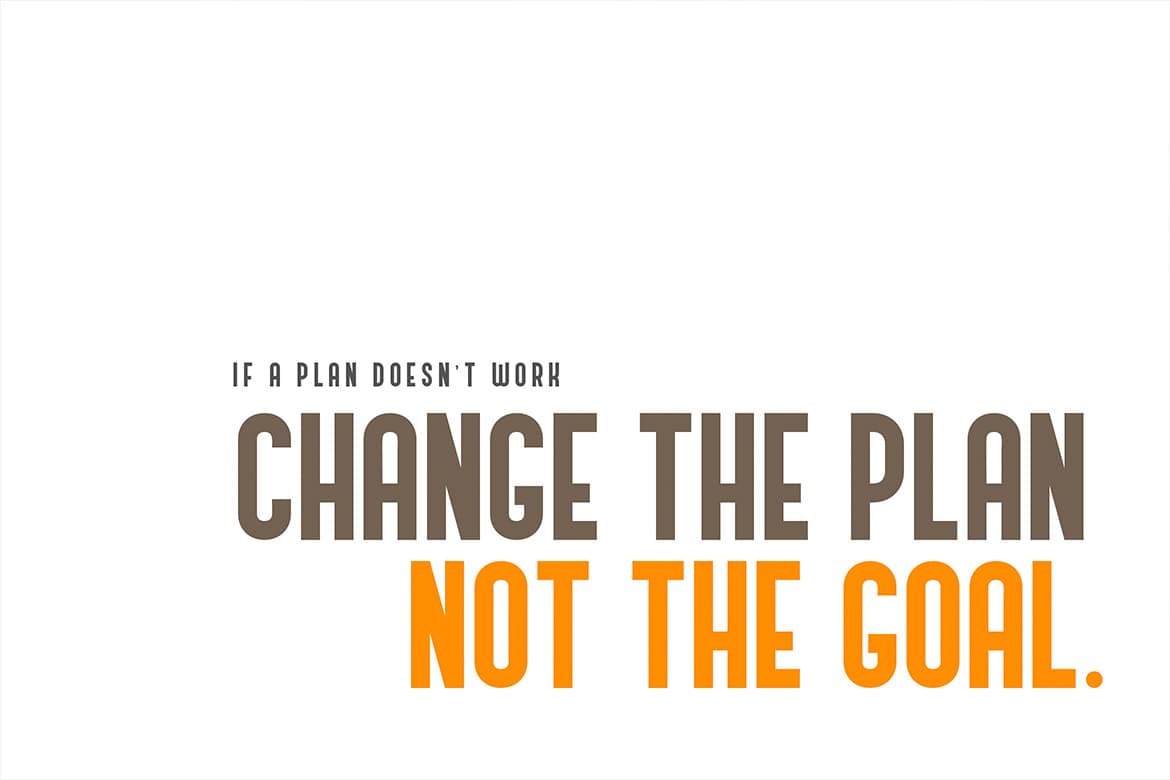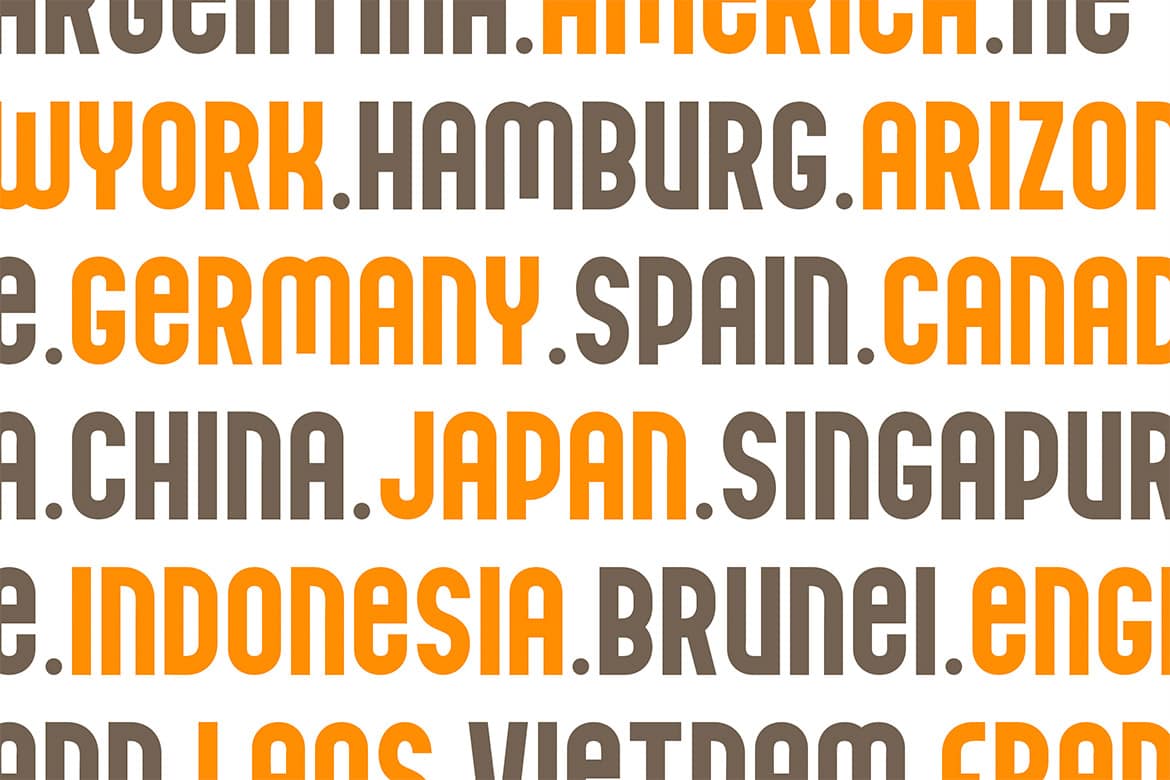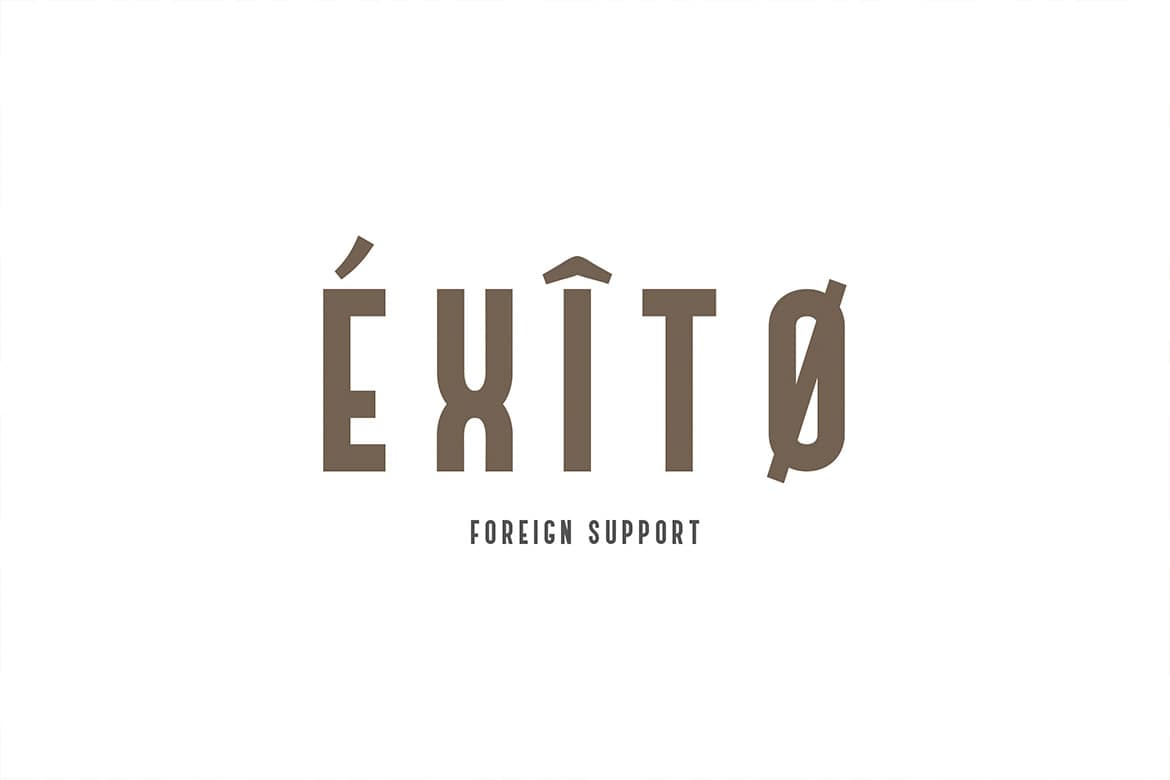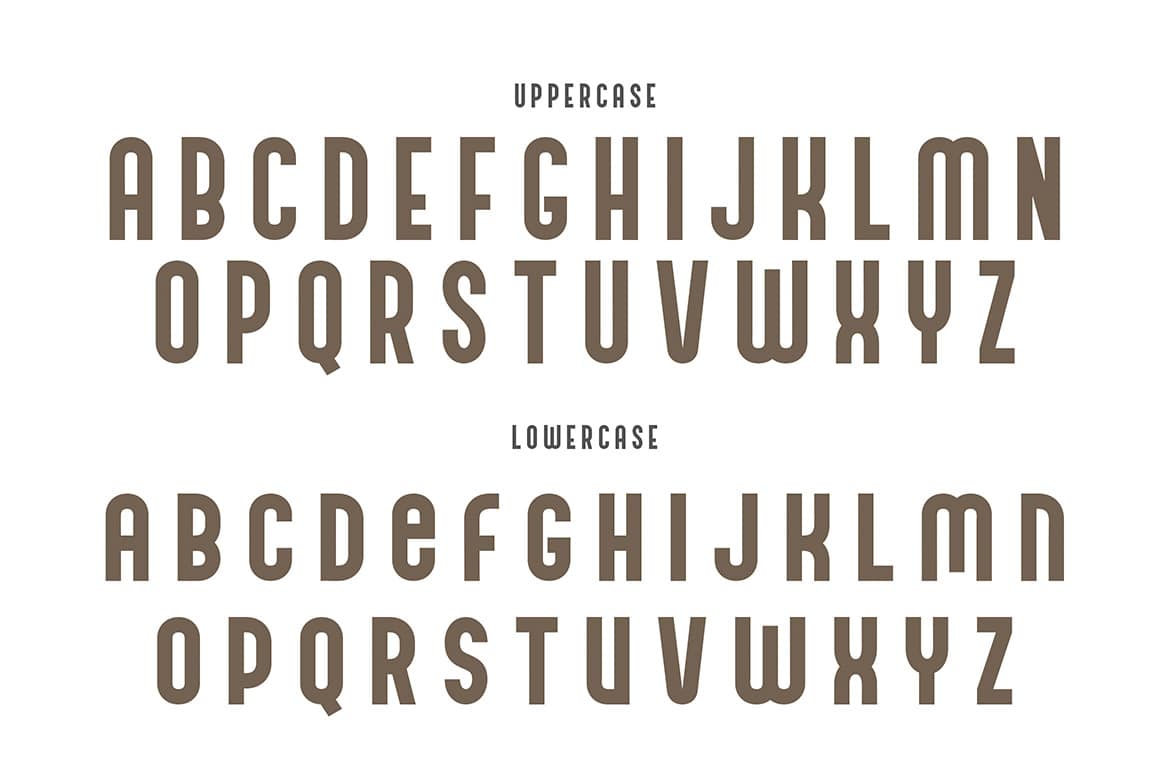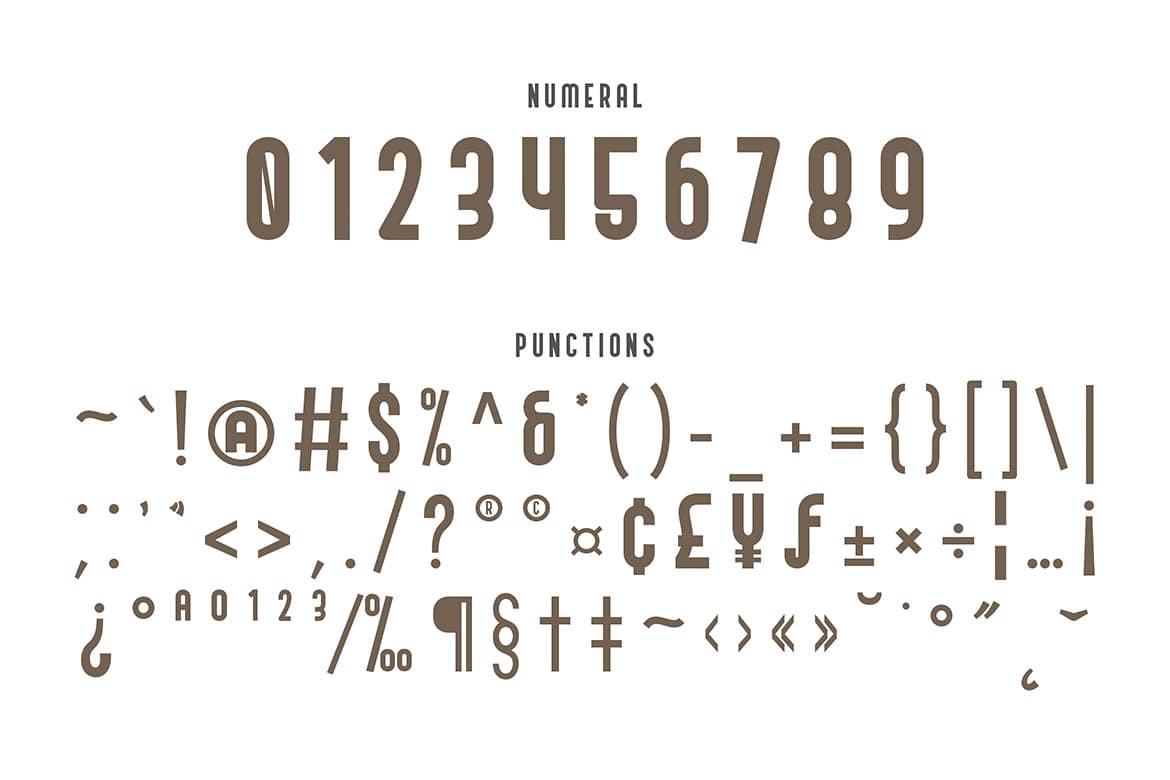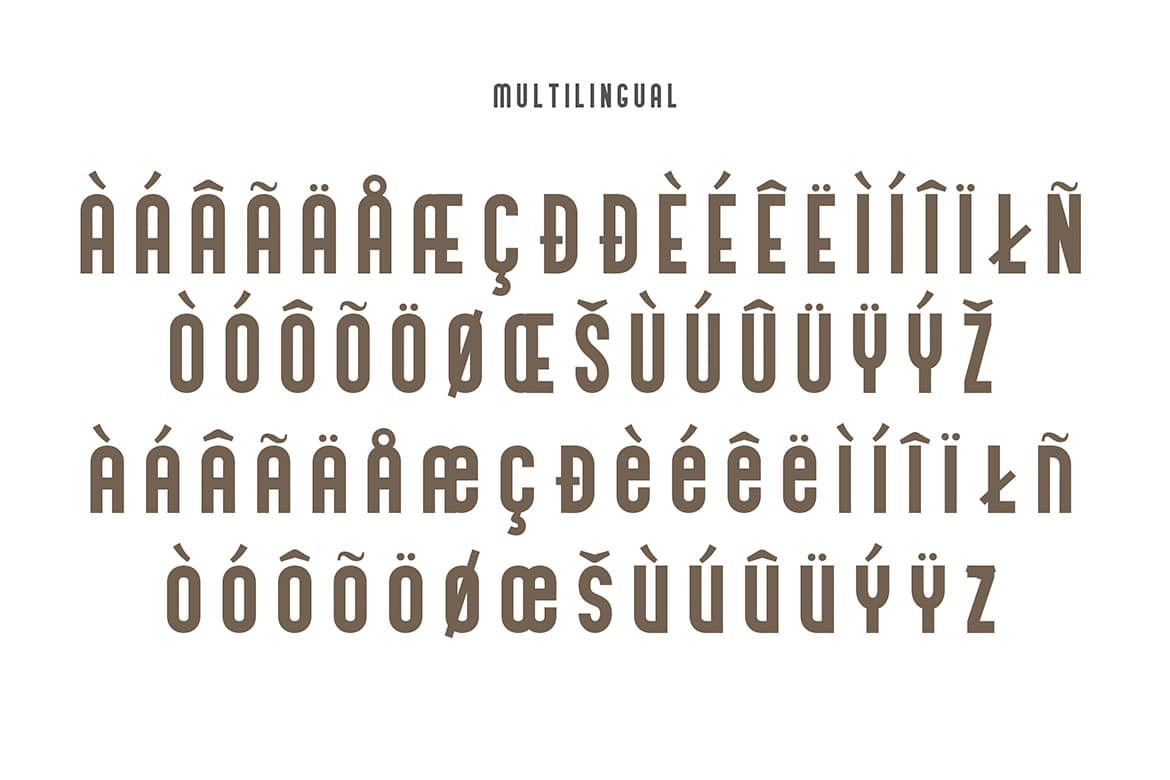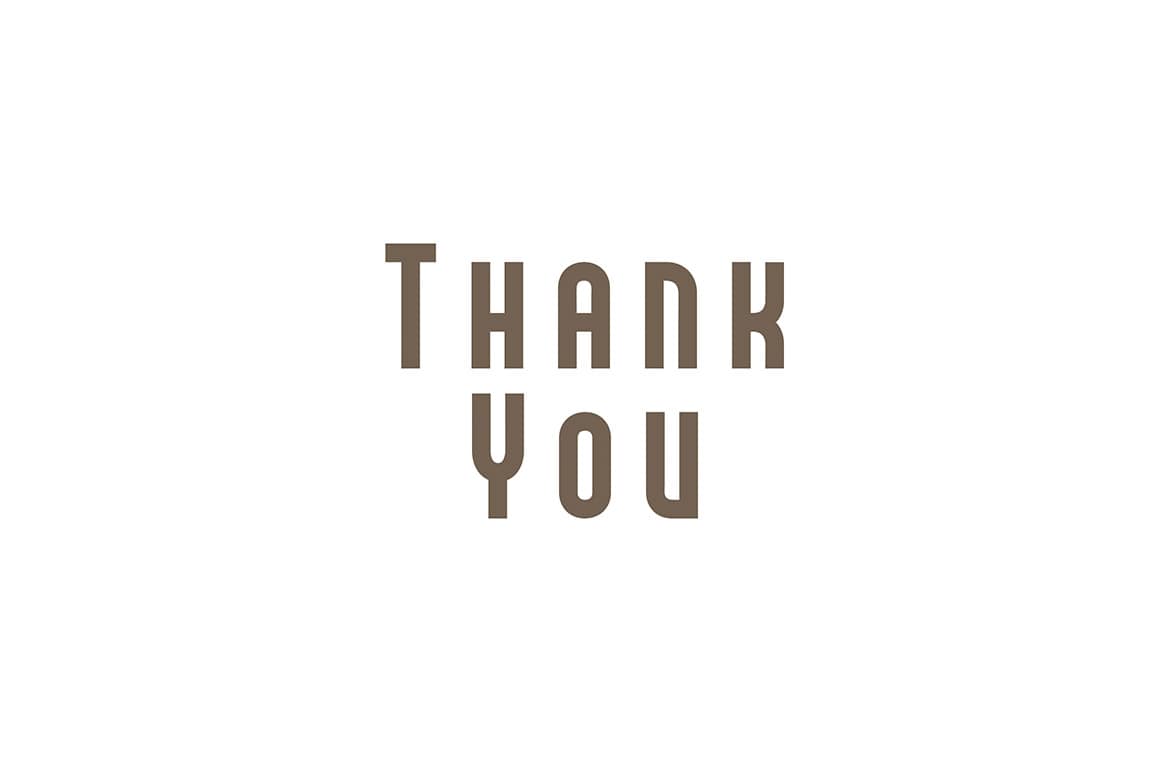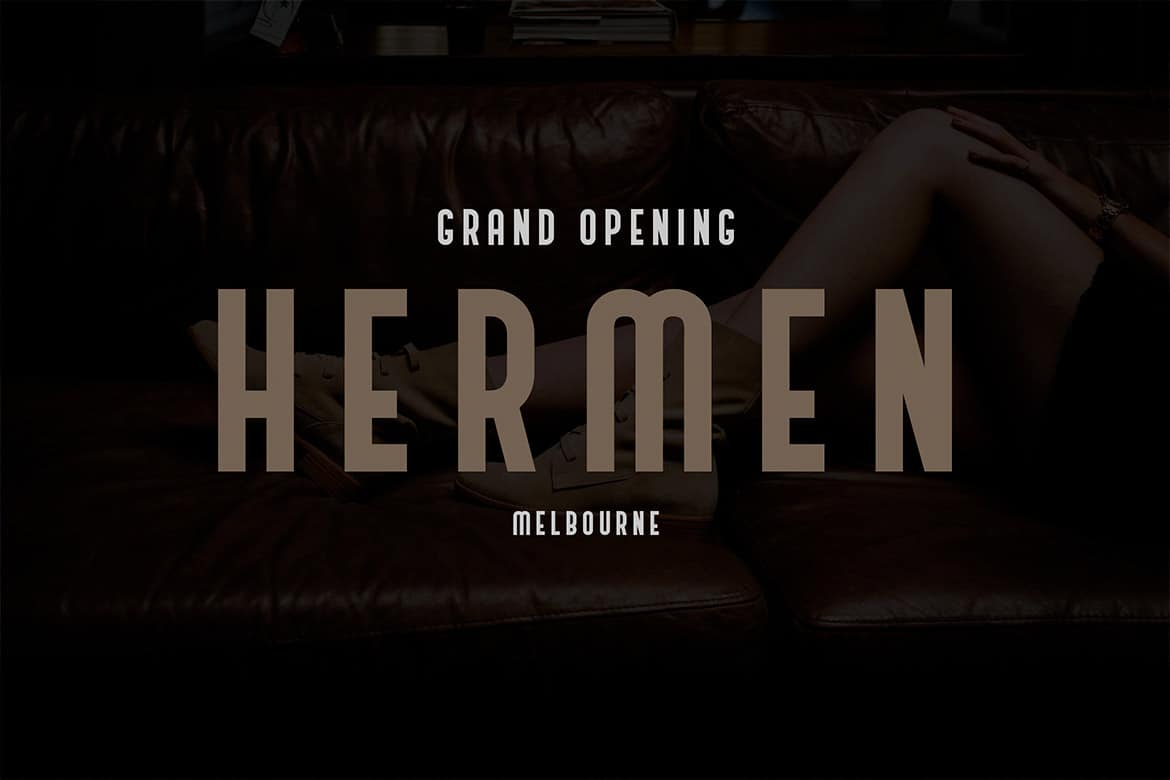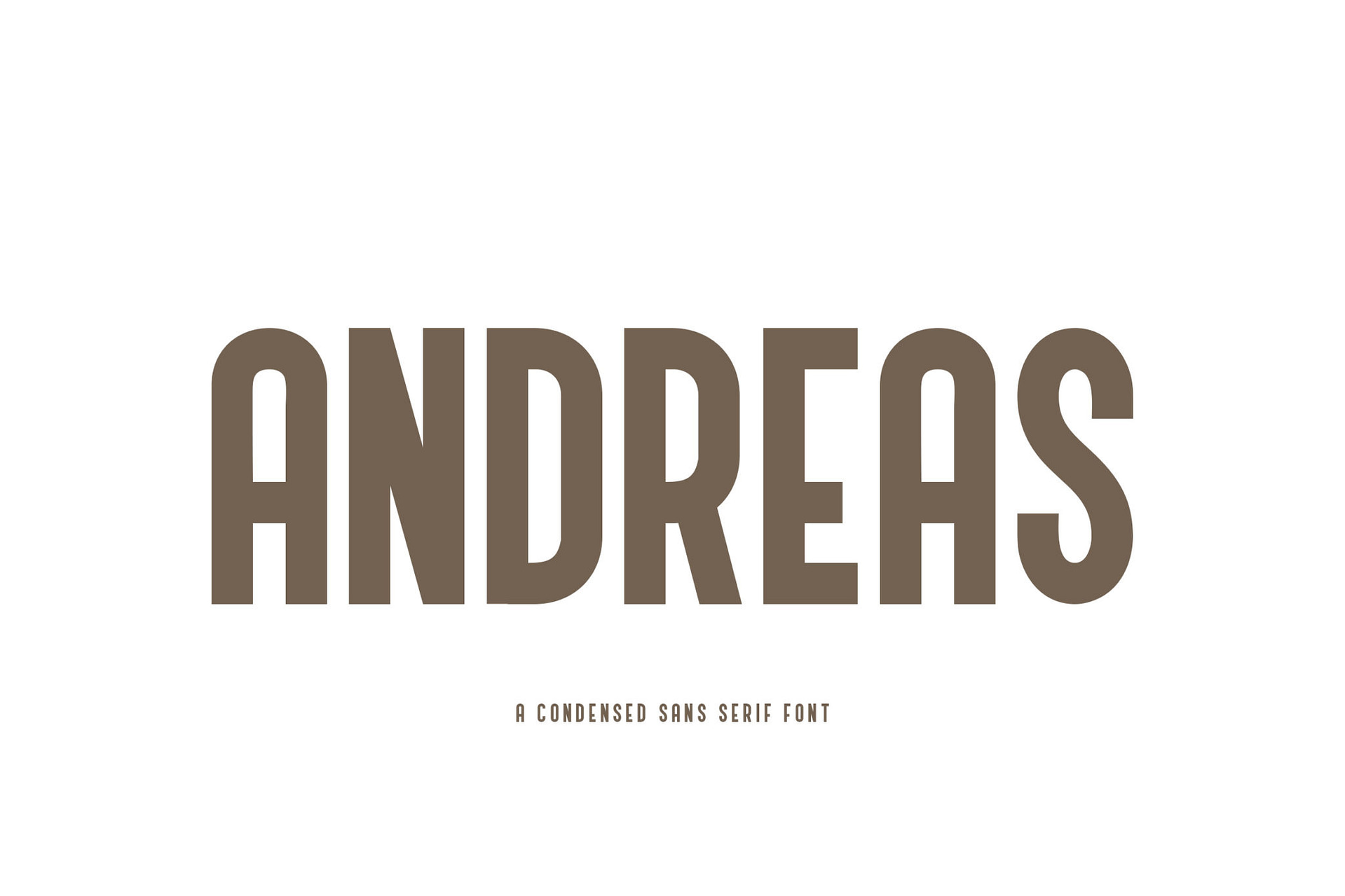
Andreas is a sleek and modern condensed sans serif font that combines simplicity with boldness. Designed for versatility and clarity, this typeface is perfect for projects requiring a professional yet contemporary look. Its compact design and clean lines make it suitable for a variety of creative and business needs.
Key Features:
1. Condensed Structure: The narrow letterforms save space while maintaining readability, ideal for layouts with limited space.
2. Minimalist Aesthetic: Offers a clean and modern look, perfect for brands or projects prioritizing simplicity and sophistication.
3. Versatile Applications:
• Branding and logos
• Editorial and magazine layouts
• Posters, banners, and advertisements
• Social media graphics
• Business presentations
4. Professional Finish: Sharp edges and even spacing ensure a polished look across all formats.
Ideal For:
• Graphic designers aiming for a modern aesthetic.
• Businesses looking to create a sleek and professional brand image.
• Projects that require clarity and impact, such as headlines or digital interfaces.
Applications:
• Branding: Great for creating logo designs or visual identities.
• Editorial Design: Perfect for headlines, subheadings, and cover pages in magazines or newspapers.
• Corporate Materials: Suitable for presentations, business cards, and reports.
• Advertising: Bold enough to grab attention in posters and social media ads.
• Web Design: Excellent for clean and minimalist website headers or banners.
With its modern and condensed design, Andreas is an excellent choice for projects that need a professional, stylish, and impactful typeface. It’s the perfect balance of functionality and aesthetics, ensuring your designs stand out with clarity and elegance.
Andreas – A Condensed Sans Serif Font